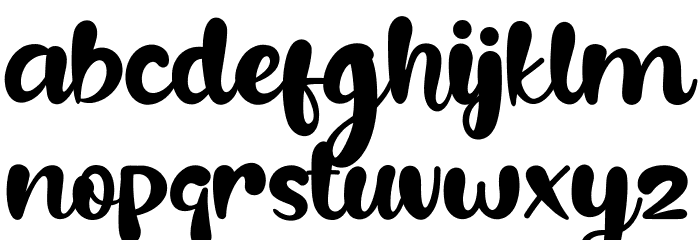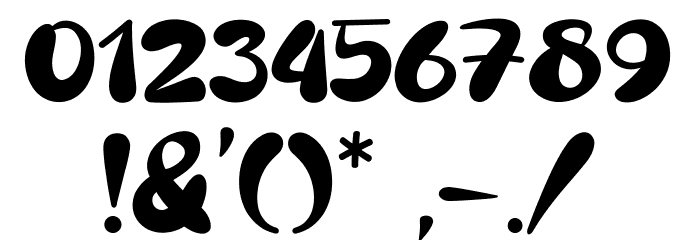
Beloved Daughter Font
This font features a playful and bold script style, characterized by its smooth, flowing curves and rounded edges. The uppercase letters are slightly larger and more pronounced, while the lowercase letters maintain a consistent flow, adding to the font's whimsical charm. The numbers and special characters follow the same bold and rounded design, ensuring uniformity across all characters. The overall appearance is friendly and approachable, making it ideal for projects that require a personal touch.
A bold, playful script font with smooth, flowing curves and rounded edges.
- Proposed Projects: Ideal for greeting cards, invitations, playful branding, and children's book covers.
- Overall Style: Playful
- Use Case: Logos, Headlines, Invitations